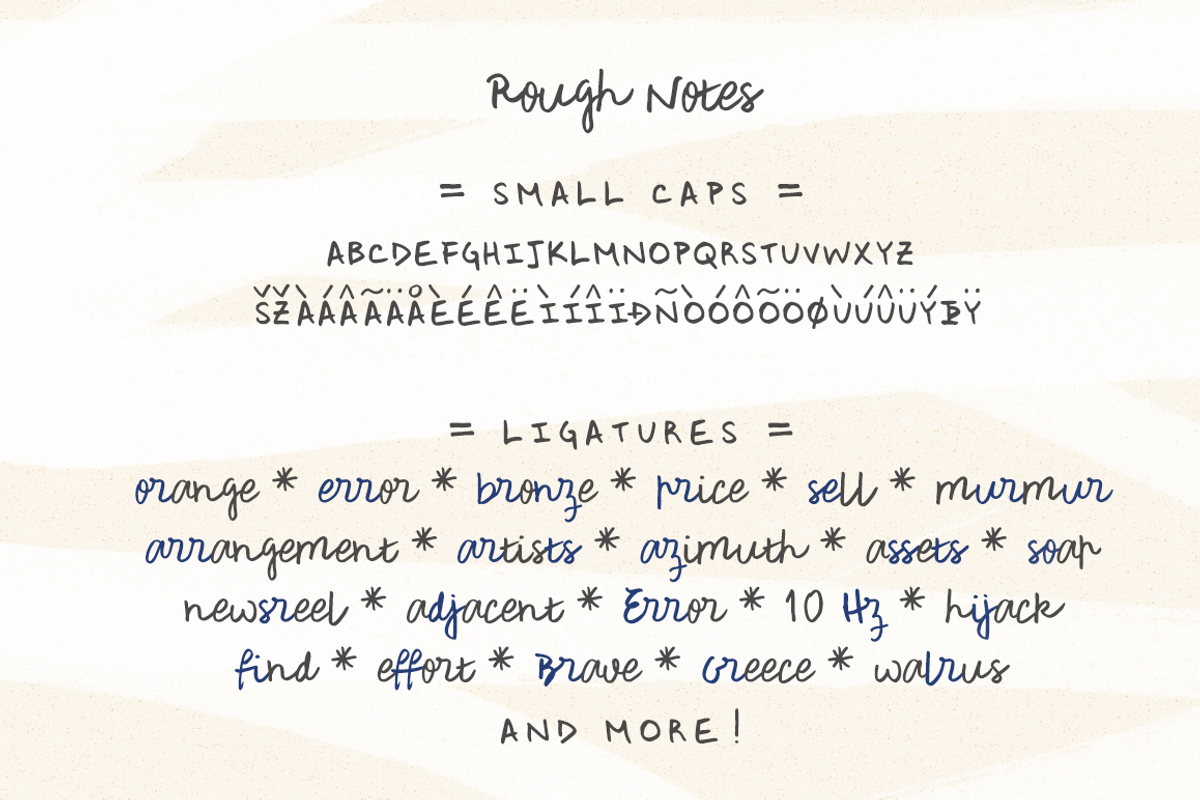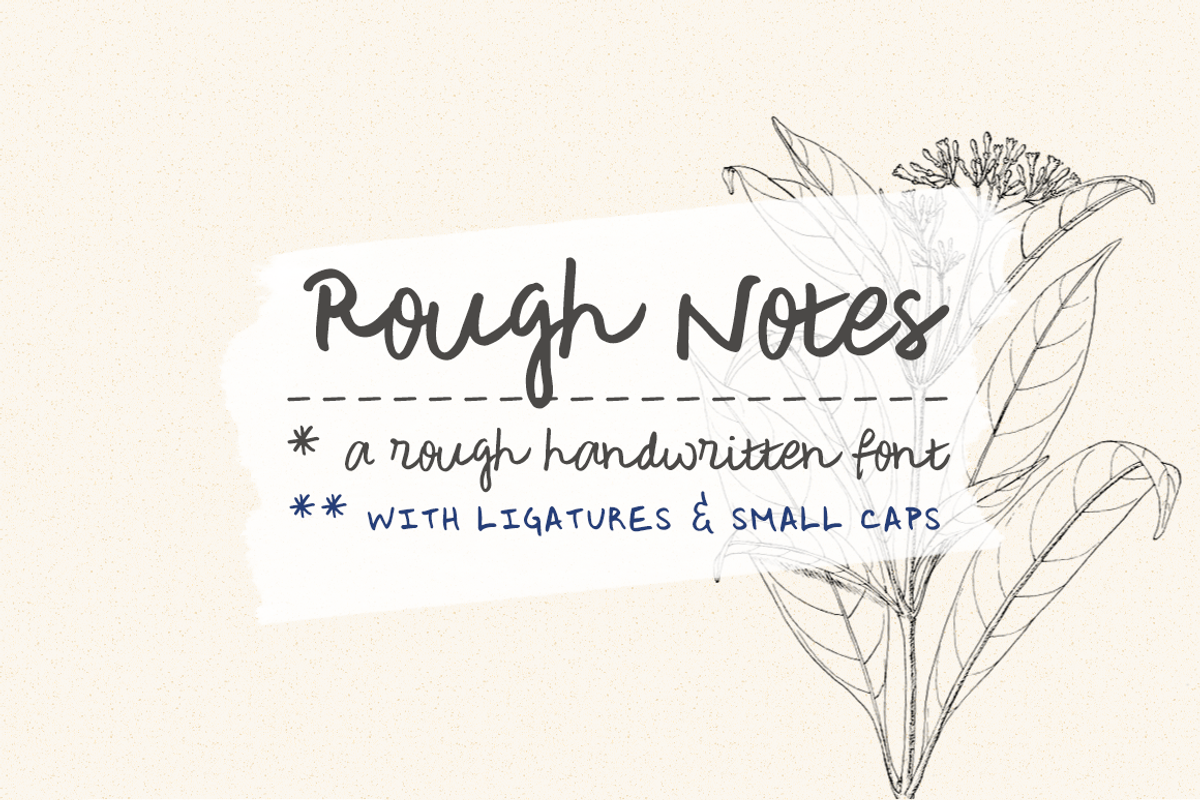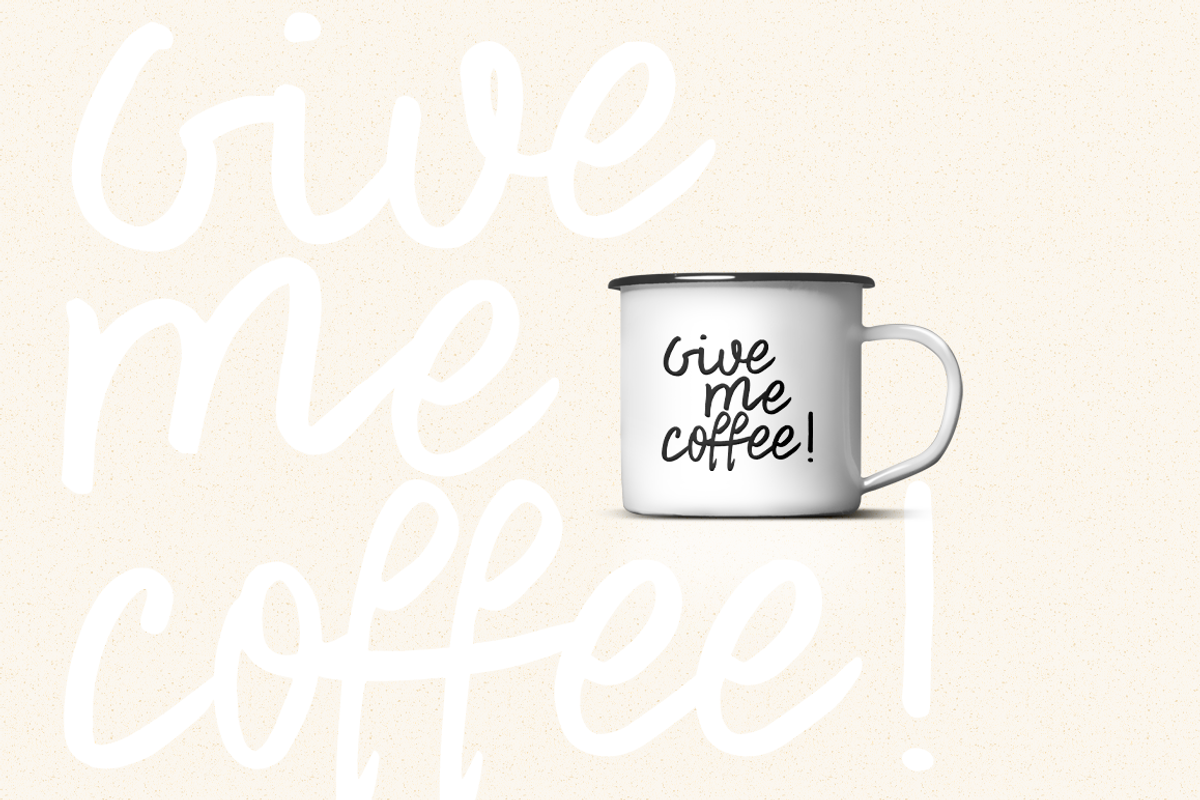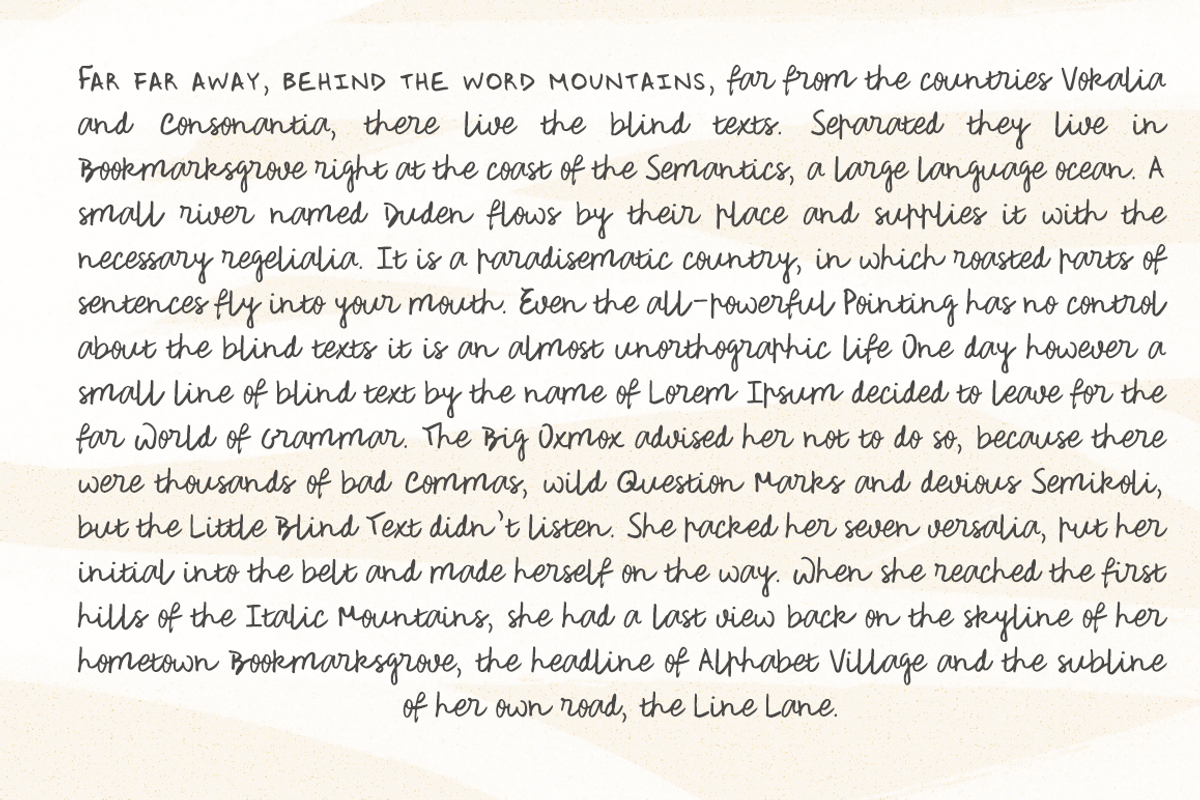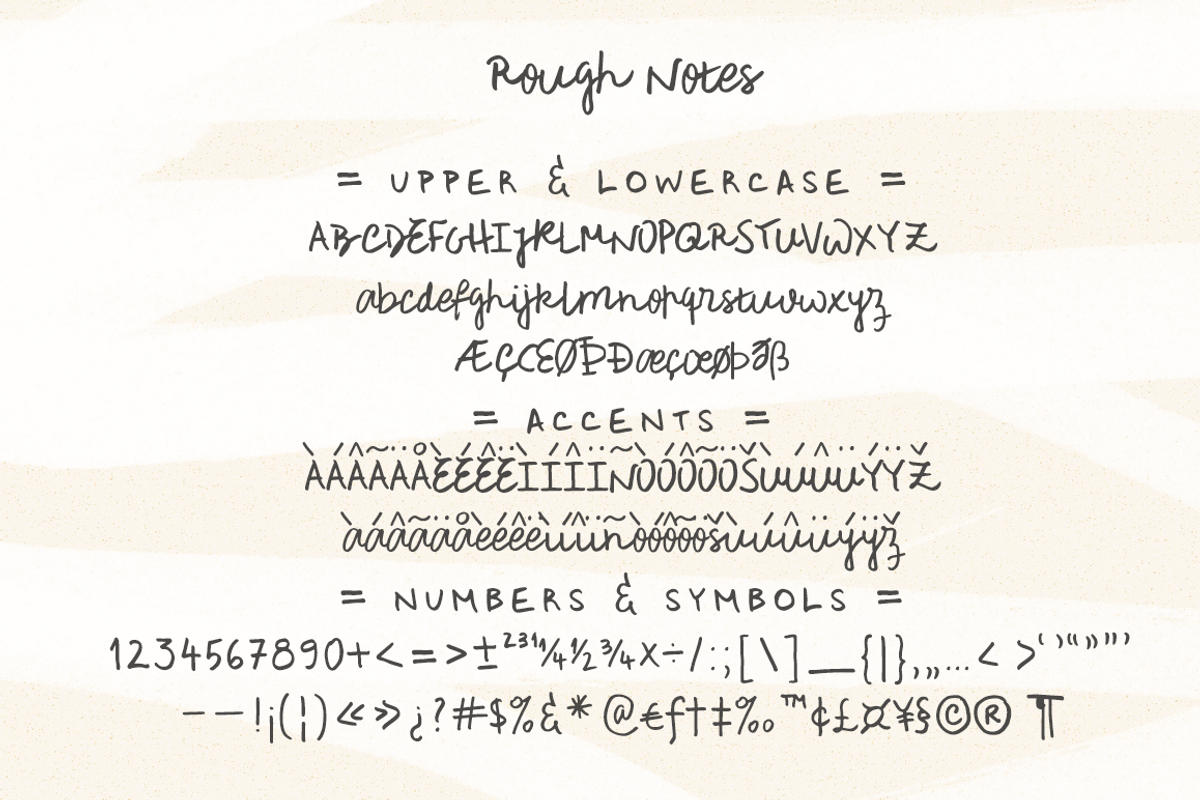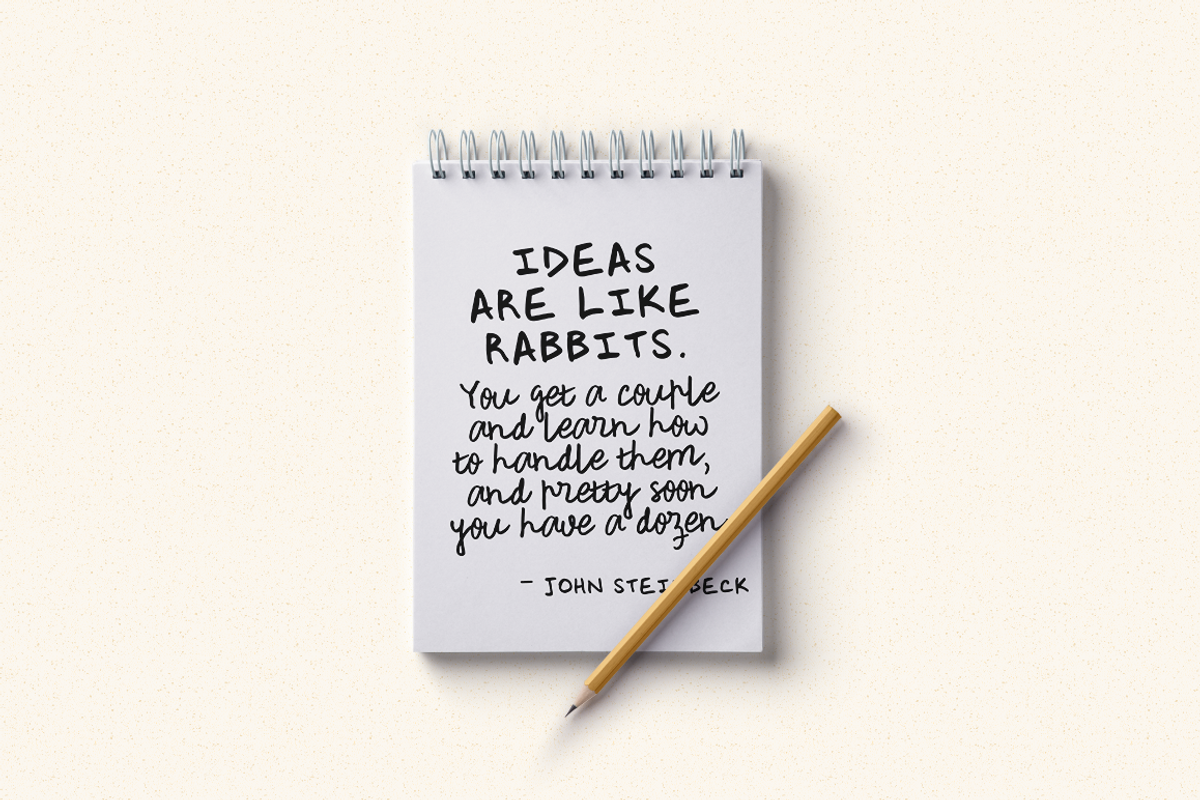
Rough Notes handwritten font
Rough Notes is a handwritten font with 550+ characters, including:
- A-Z, a-z, 0-9, accents, punctuation and symbols
- Small caps
for a smoother and more authentic handwritten feel.
Use Rough Notes in signatures and logos, notes and quotes, social media posts, and branding and packaging.